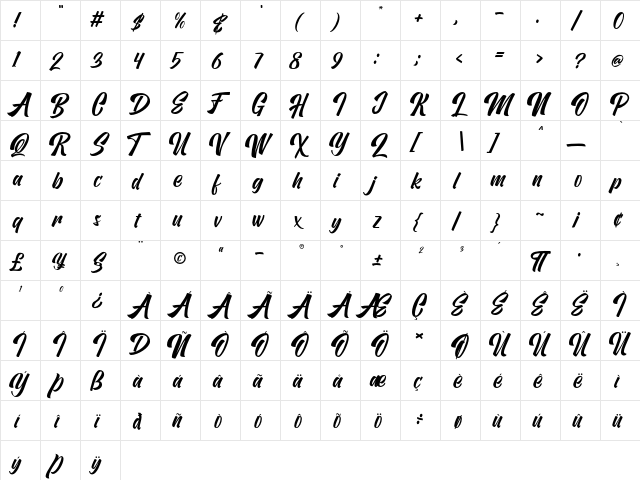
Vervelle Script
Design Context for Vervelle Typeface
Vervelle brings a calligraphic fluidity to the page — its connecting strokes and expressive curves give it an unmistakably human quality.
Font Pairing: Combine Vervelle with a simple geometric sans for maximum contrast — the tension between flowing curves and clean structure is a classic typographic pairing.
Pro Tip: Use Vervelle for short runs of text — names, titles, or taglines. Extended body copy in script faces tires the eye quickly.